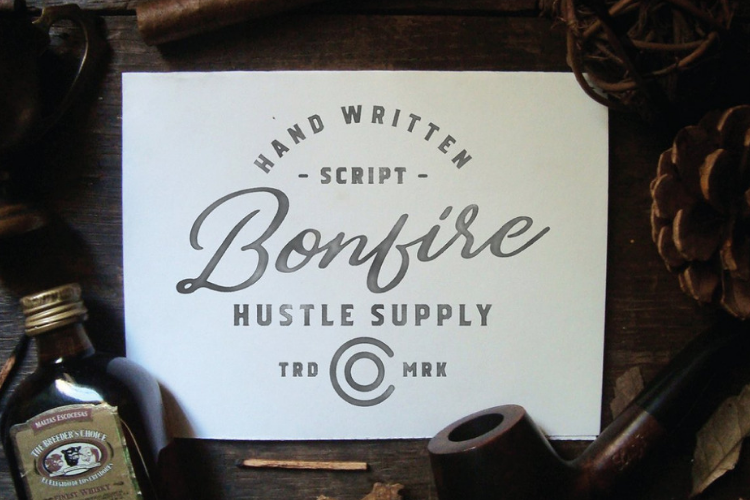
Bonfire - Brush Script
Introducing Bonfire
Bonfire is a hand made brush script. Bonfire comes with 2 sets of Capital letters for extra options! Bonfire also comes equipped with a few different alternate lower case characters as well as unique swashes. That "Q" in Quality is actually an "O" utilizing one of the swashes included. To top it off, it comes with western european characters.